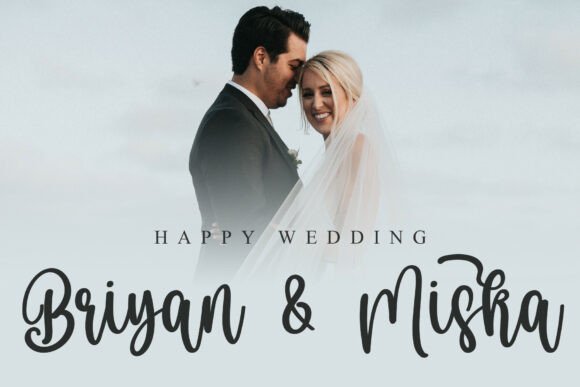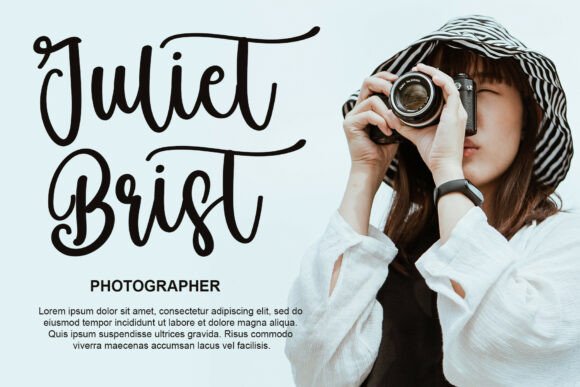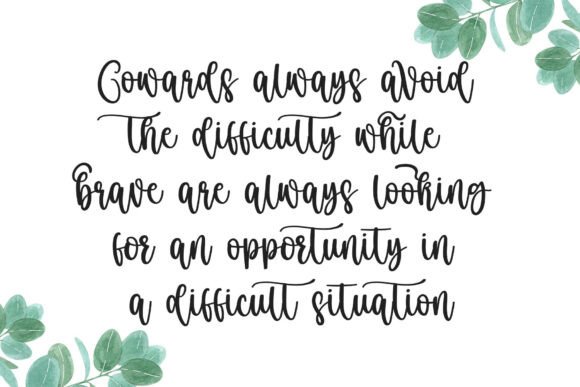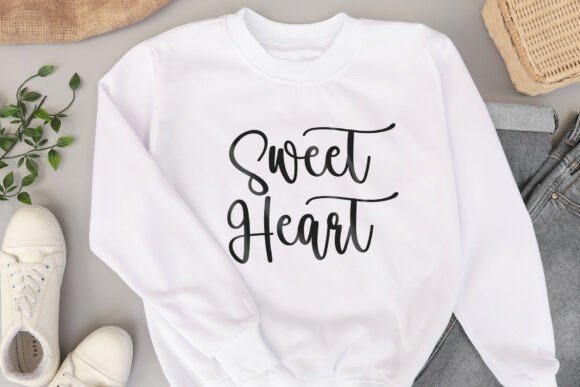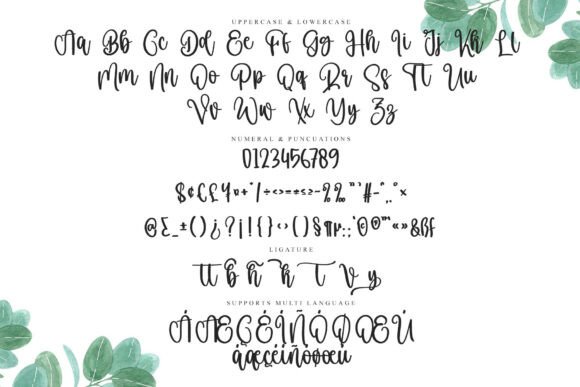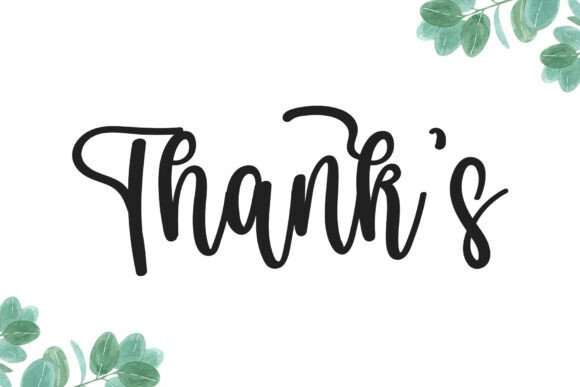
Introduction to Savory Font
As designers, we’ve all been there – staring at a blank canvas, trying to bring a creative project to life. The perfect font can make all the difference, elevating our designs from good to great. That’s where the Savory Font comes in – a stylish and dainty script font that’s sure to tantalize your taste buds.
With its elegant curves and delicate lines, Savory Font is perfect for any project that requires a touch of sophistication. Whether you’re creating a logo, branding project, label, or photography watermark, this font is sure to impress. And the best part? It’s PUA encoded, making it easy to access all of the glyphs and swashes you need to create a truly unique design.
As a valuable resource for designers, the Savory Font offers a high-quality, free download that’s perfect for any creative project. Its transparent background makes it easy to use on any background, giving you complete control over your design. Whether you’re a seasoned pro or just starting out, the Savory Font is a must-have in your design arsenal.
Key Features of Savory Font
- High-quality, professional font perfect for creative projects, including logos, brochures, and business cards.
- Features a transparent background, allowing for seamless integration into any design or layout.
- Designed to be highly legible, even at small font sizes, making it perfect for use in digital designs, such as websites and social media graphics.
- Includes a range of styles and weights, from light to bold, to add depth and variety to your creative project.
- Available in a high resolution (300 DPI) to ensure crisp, clear text and graphics in both print and digital formats.
Honest Review: Savory Font
I recently stumbled upon the Savory Font and was excited to give it a try for my latest creative project. As a designer, I’m always on the lookout for high-quality design resources that can elevate my work.
- ✨ The font is incredibly versatile and can be used for a wide range of creative projects, from logos to packaging designs.
- ✨ The transparent background makes it easy to layer and customize the font to fit my design needs.
However, I did encounter a few limitations with the Savory Font.
- ⚠️ The font library is relatively small, which may limit its use in more complex design projects.
- ⚠️ Some of the characters may require manual adjustments to achieve the desired look.
Overall, I’m impressed with the Savory Font and would recommend it to designers looking for a high-quality, free download option. While it has some limitations, its versatility and customization options make it a valuable addition to any design resource library.
Savory Font
Tips for Getting the Most Out of Savory Font
When using Savory Font, consider the following tips: Use the font on a transparent background to give your design a clean and modern look. Experiment with different font sizes and styles to create visual interest. Consider pairing the font with other design resources to create a cohesive look.
Savory Font is a versatile design resource that can be used in a variety of creative projects, including: branding and logos, social media graphics, and marketing materials. It’s a high-quality font that’s perfect for designers looking for a unique and stylish option.